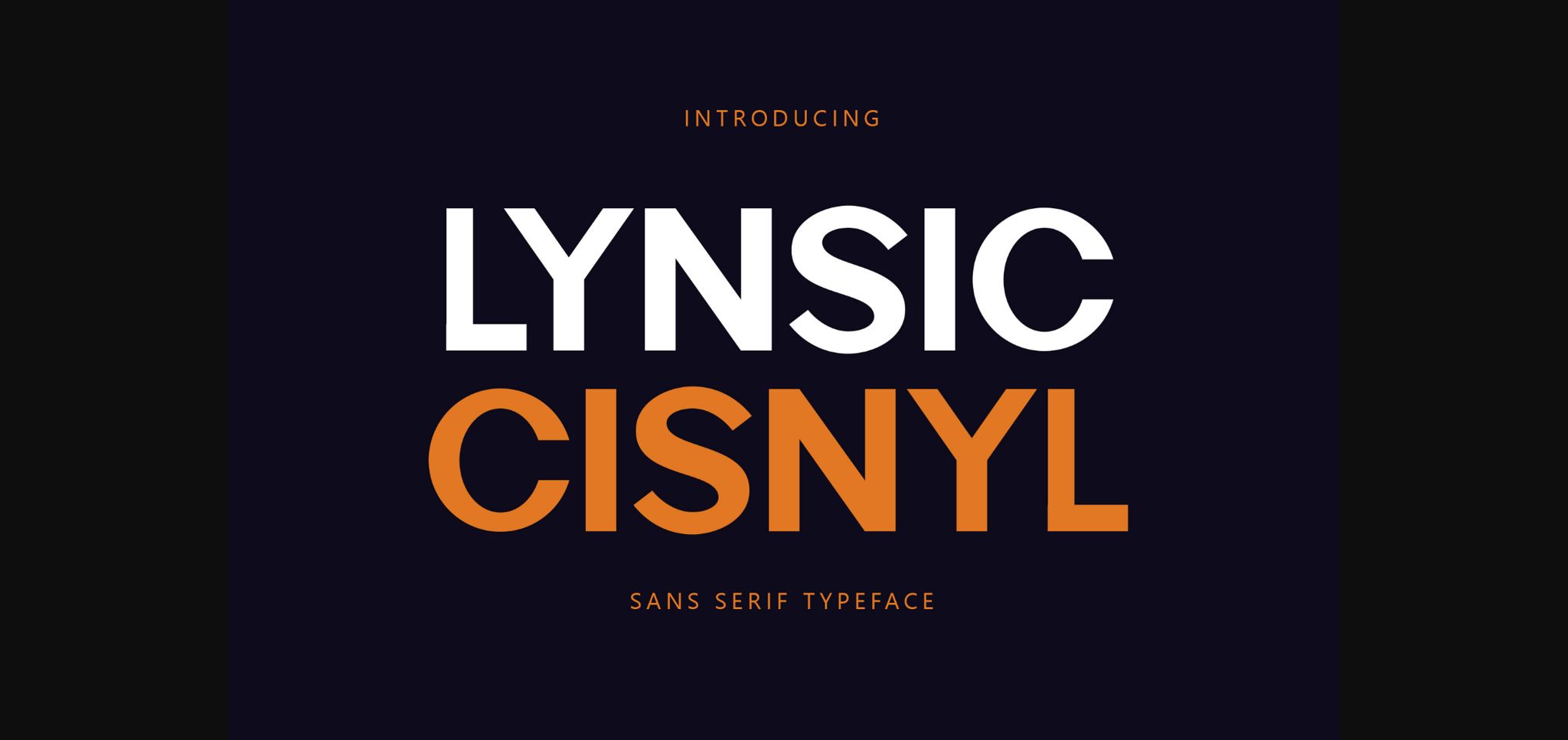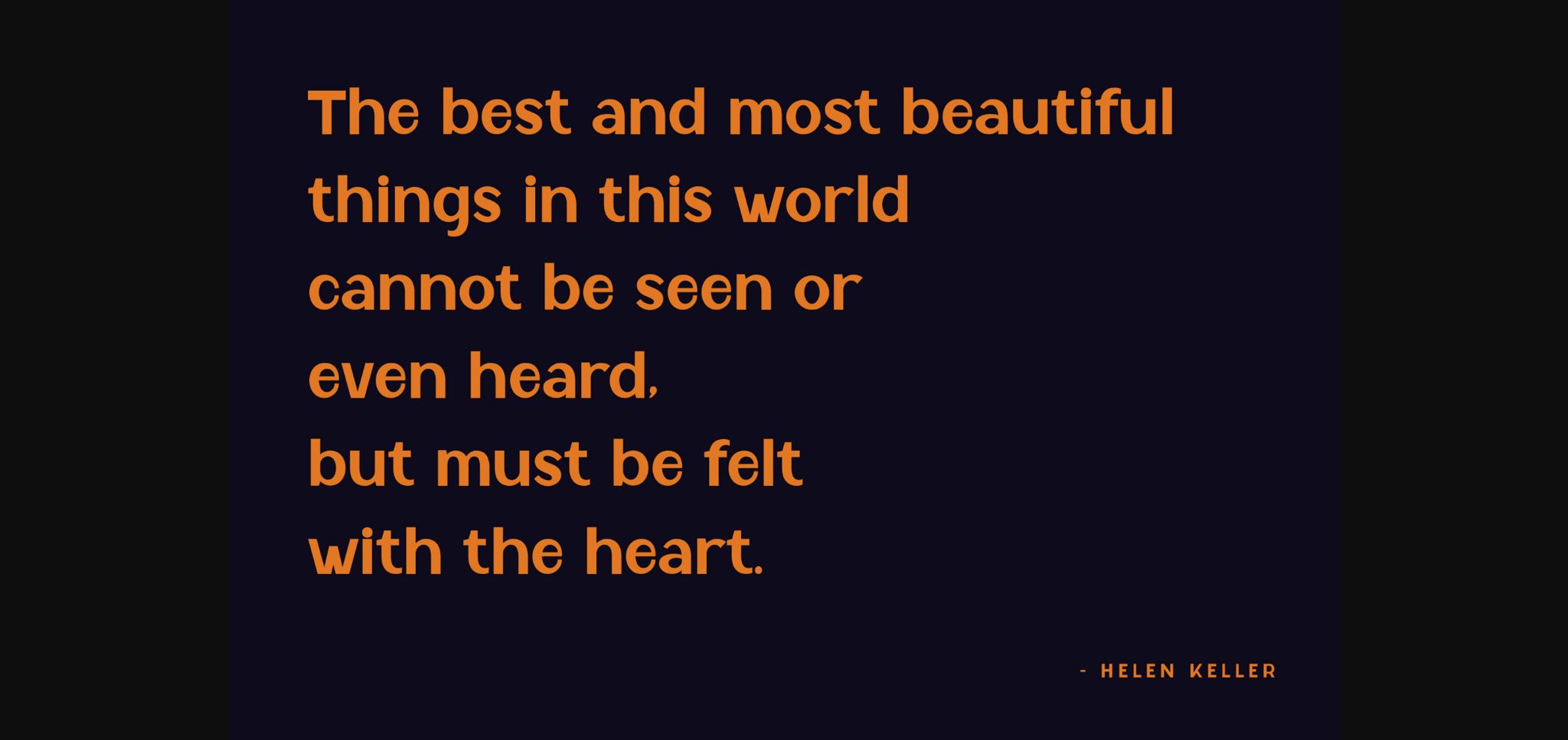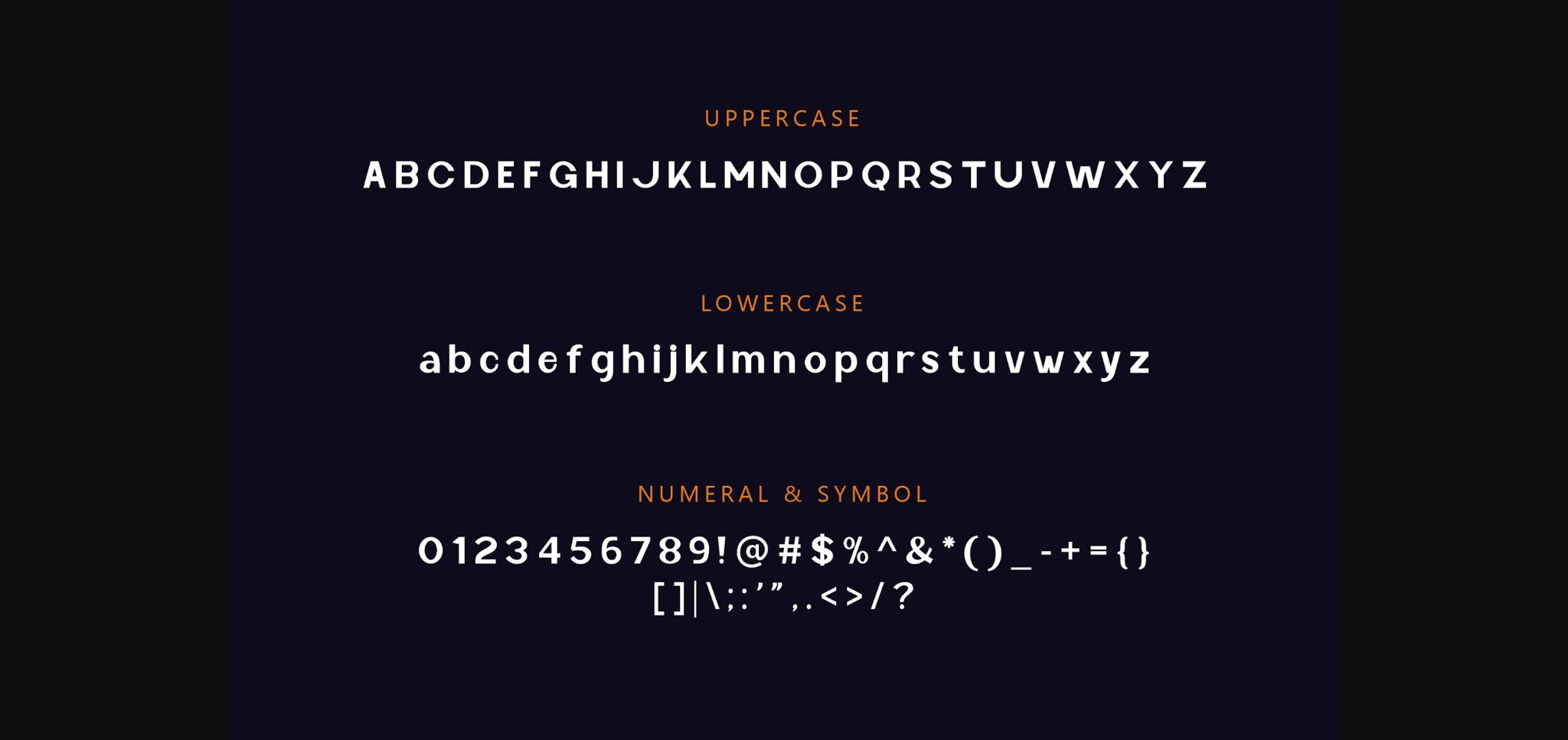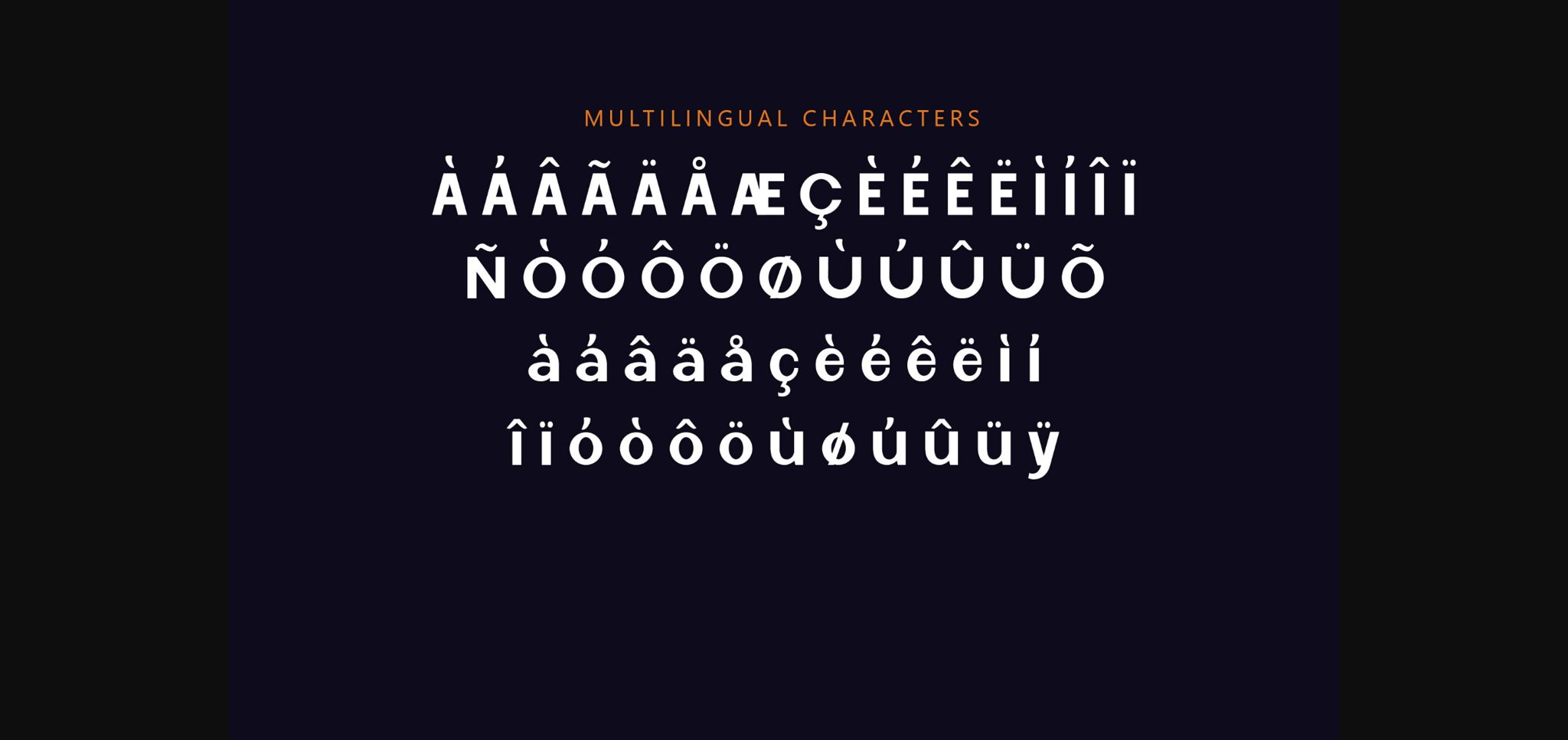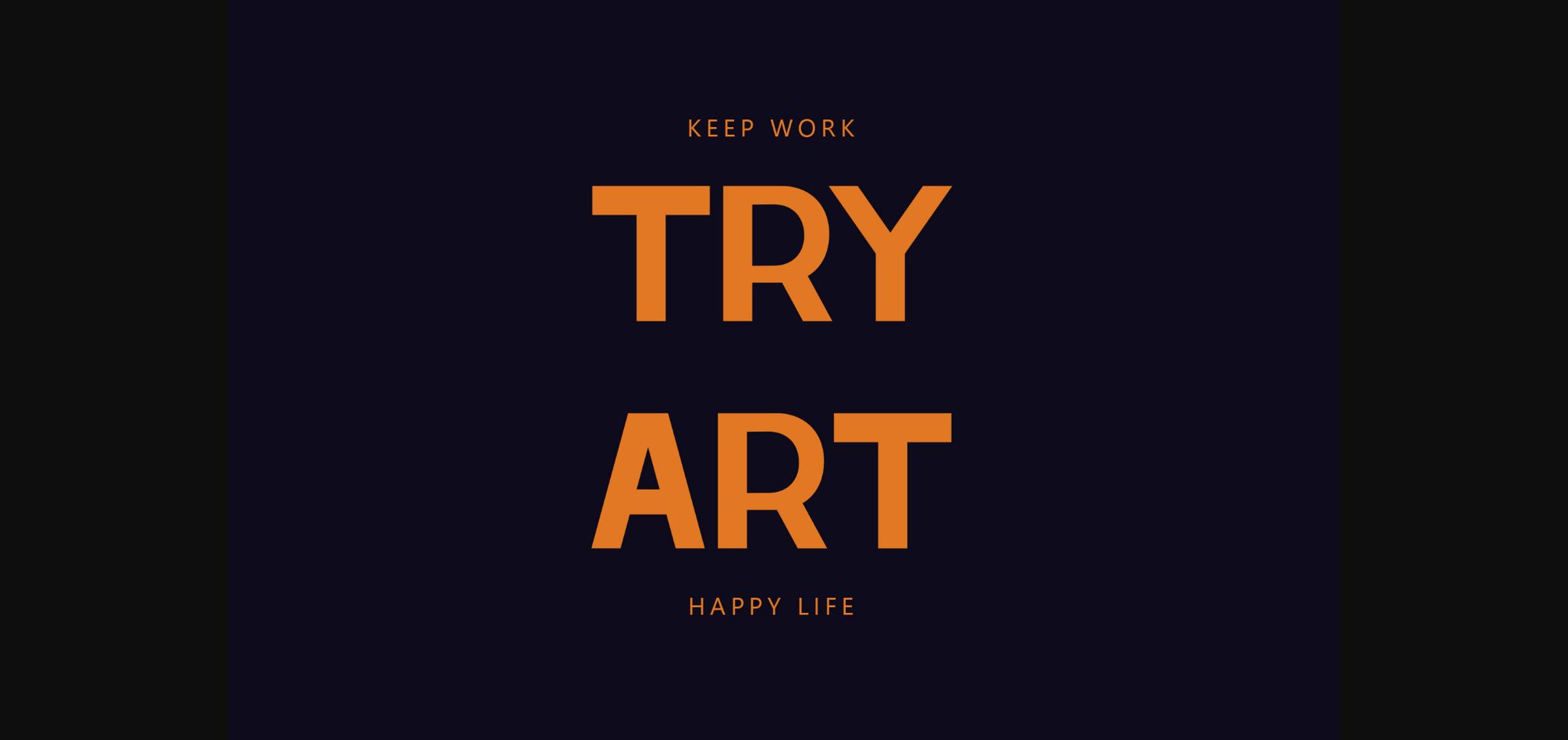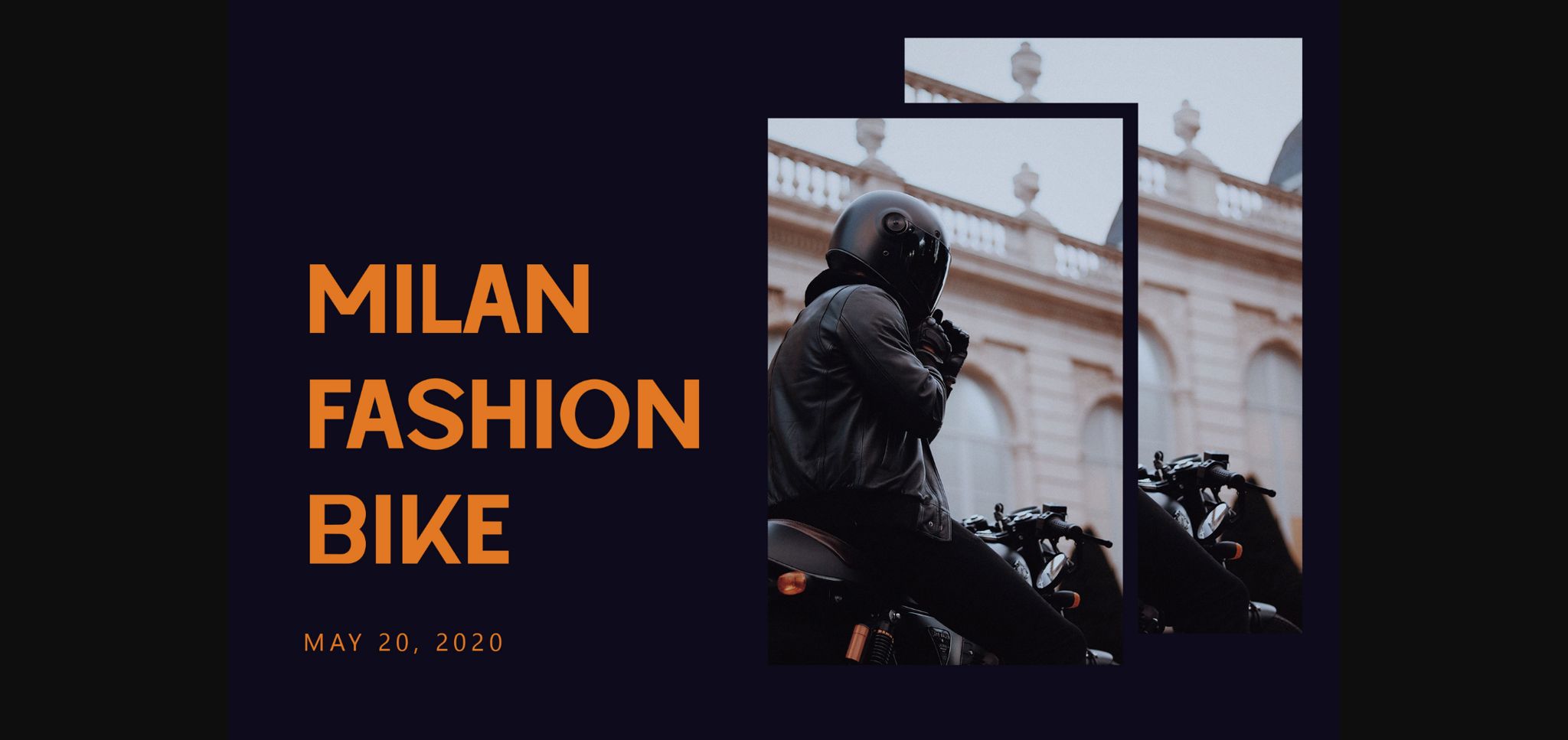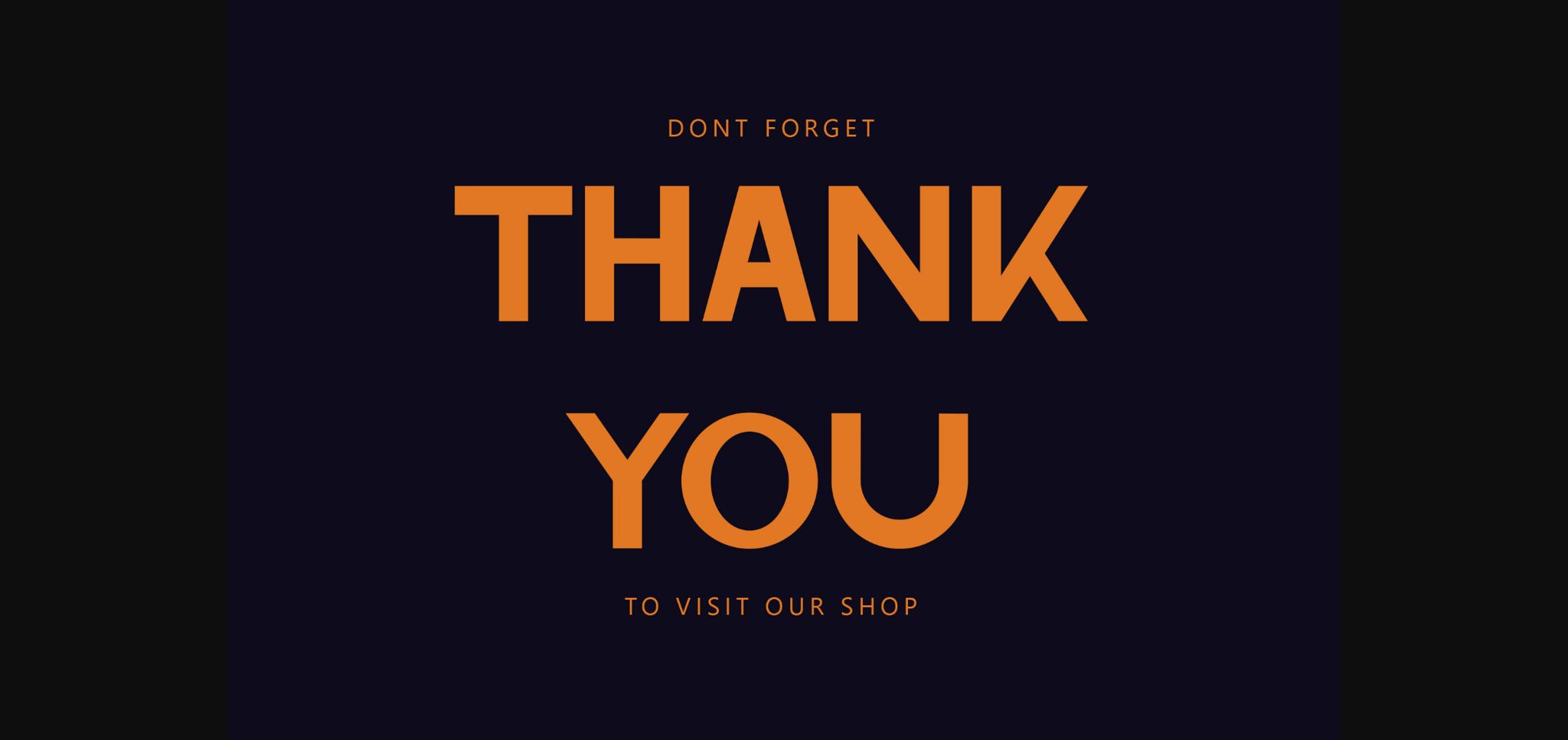
Lynsic Cisnyl is a classy and modern sans serif font. With its neat and beautiful arrangement of letters, this typeface will look outstanding in both formal and non-formal designs.